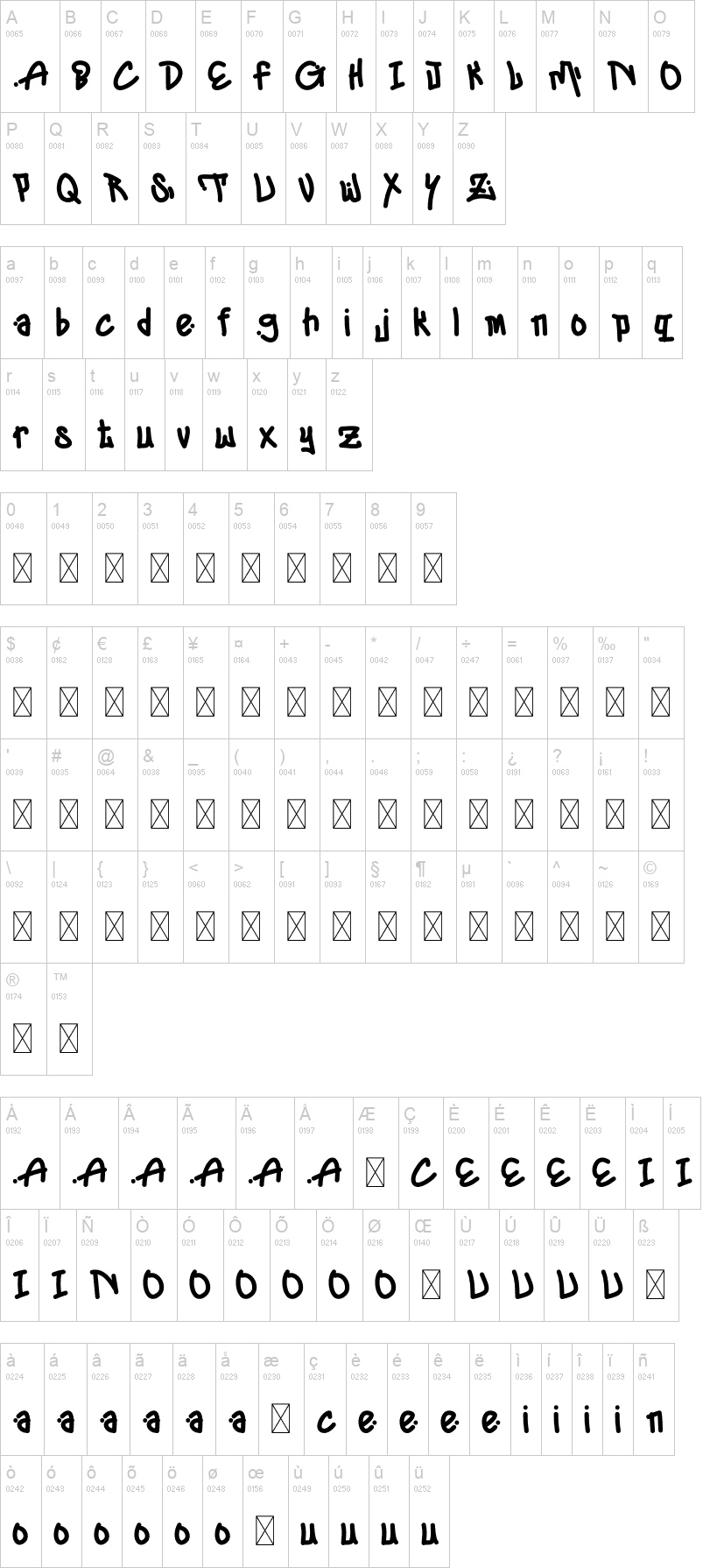
Note of the authorThe Quenn Of Street is new Graffiti font from Aphriell Art, clean feel character set. To create the beautiful combination, just mix the uppercase and lowercase, and Bonus swash. The Quenn Of Street inspire from Graffiti Street art.
The Quenn Of Street is suitable font for many creative products & designs.